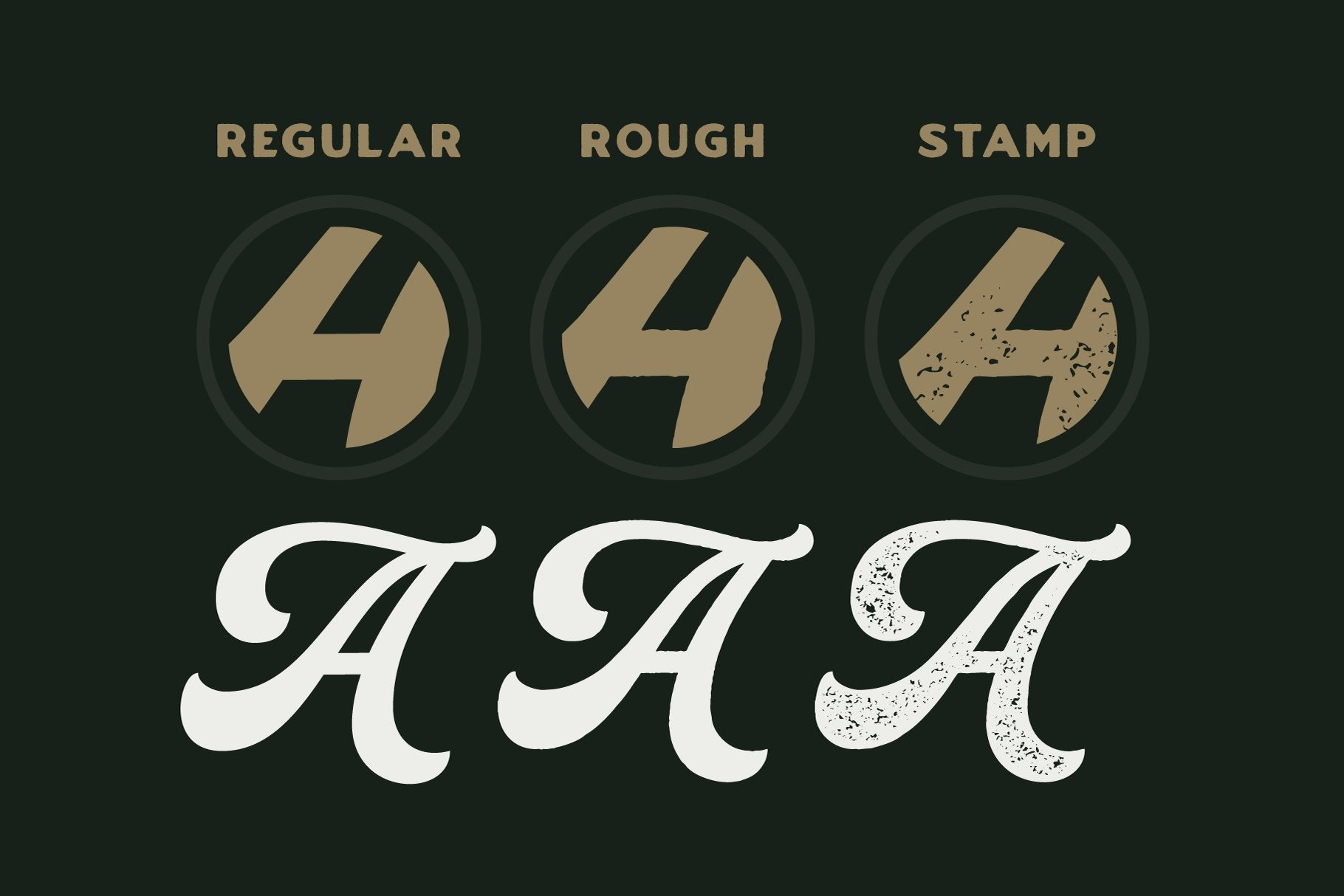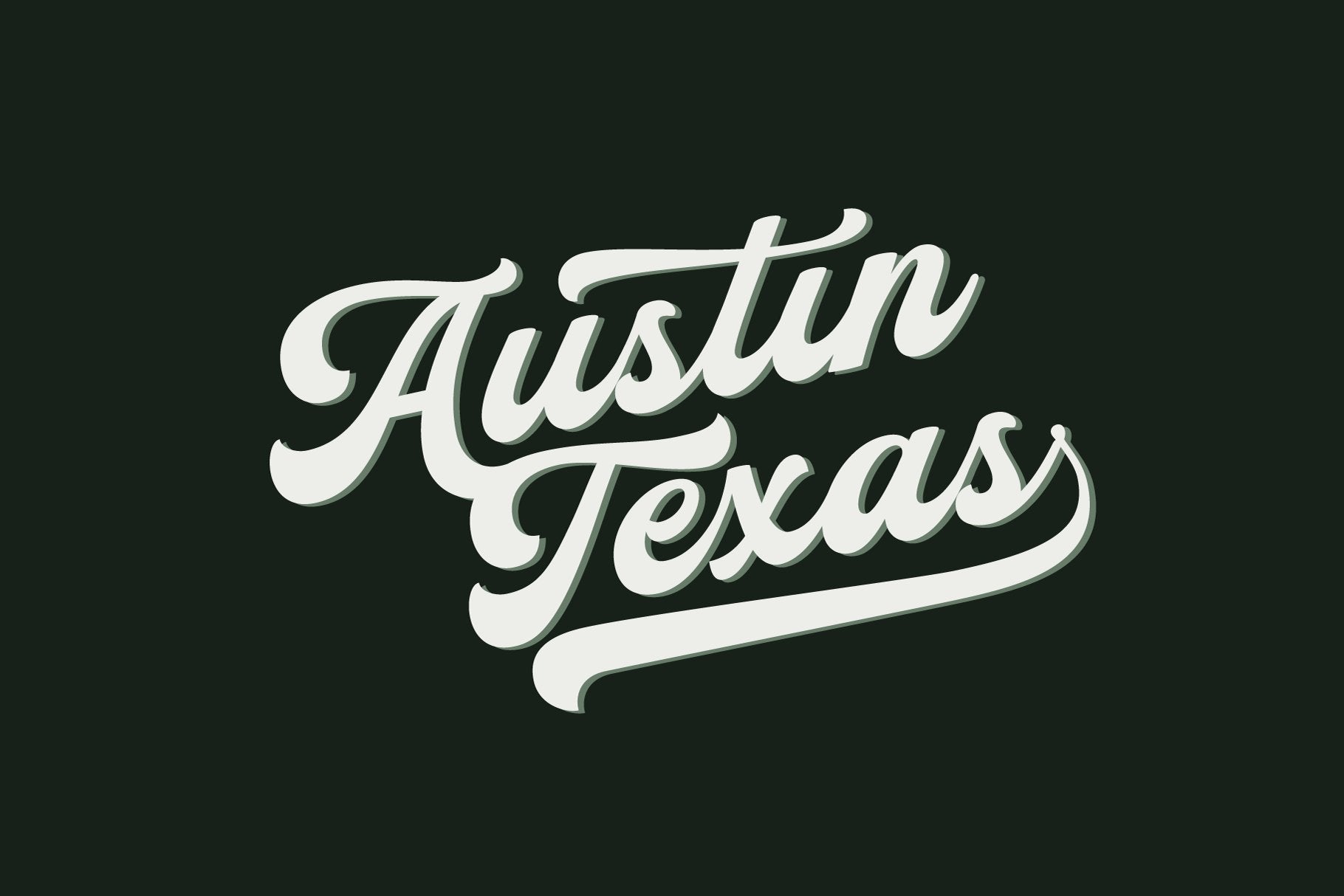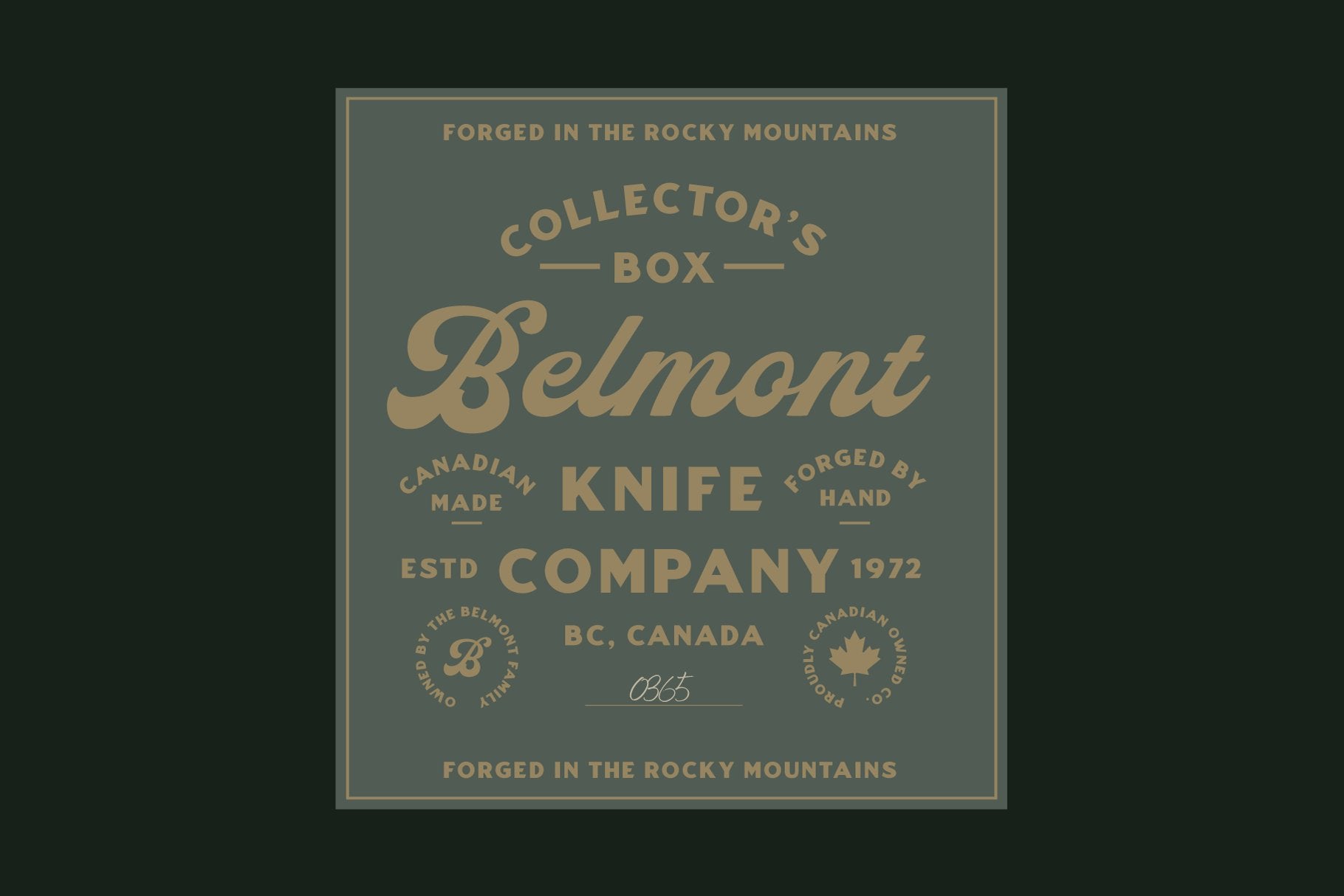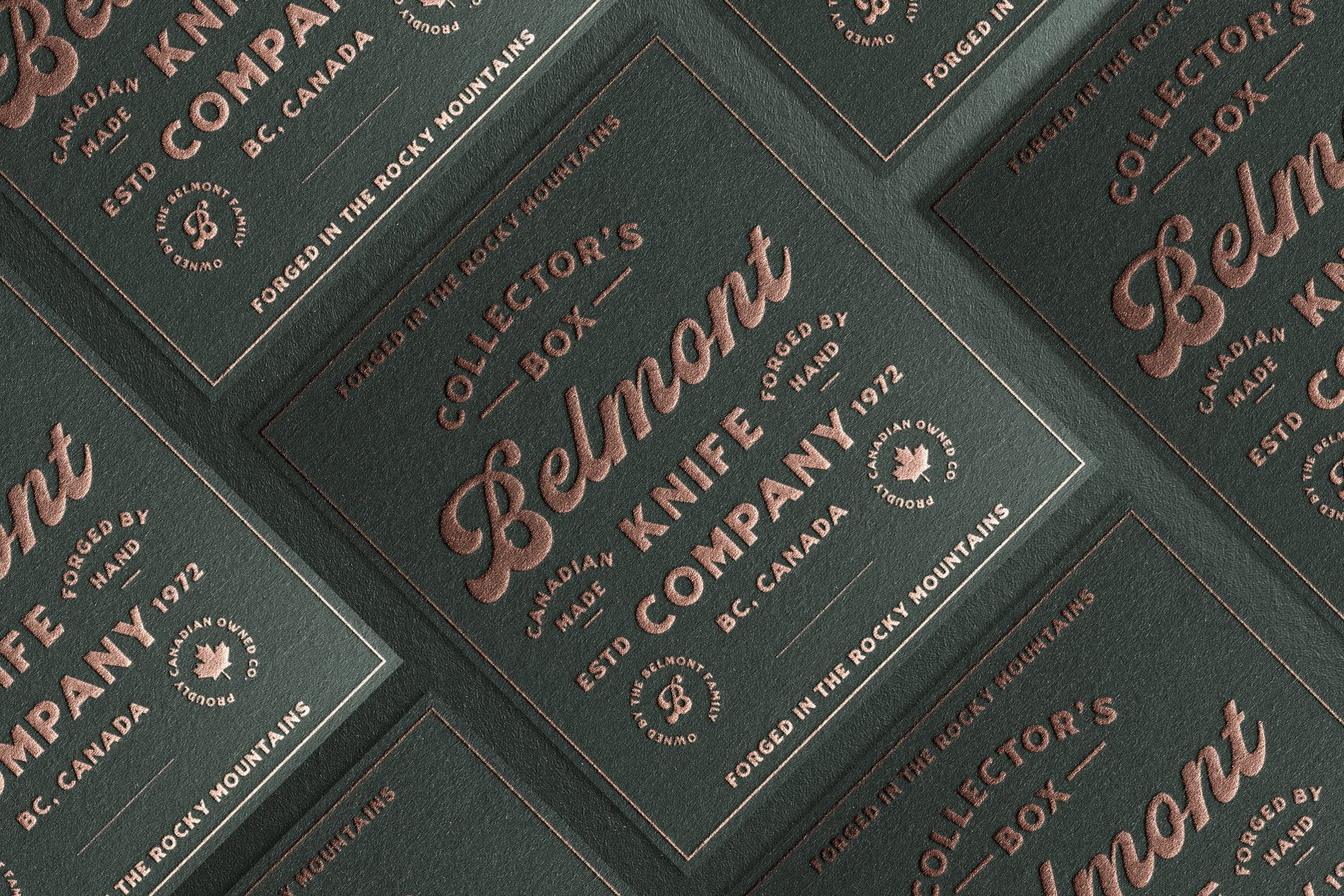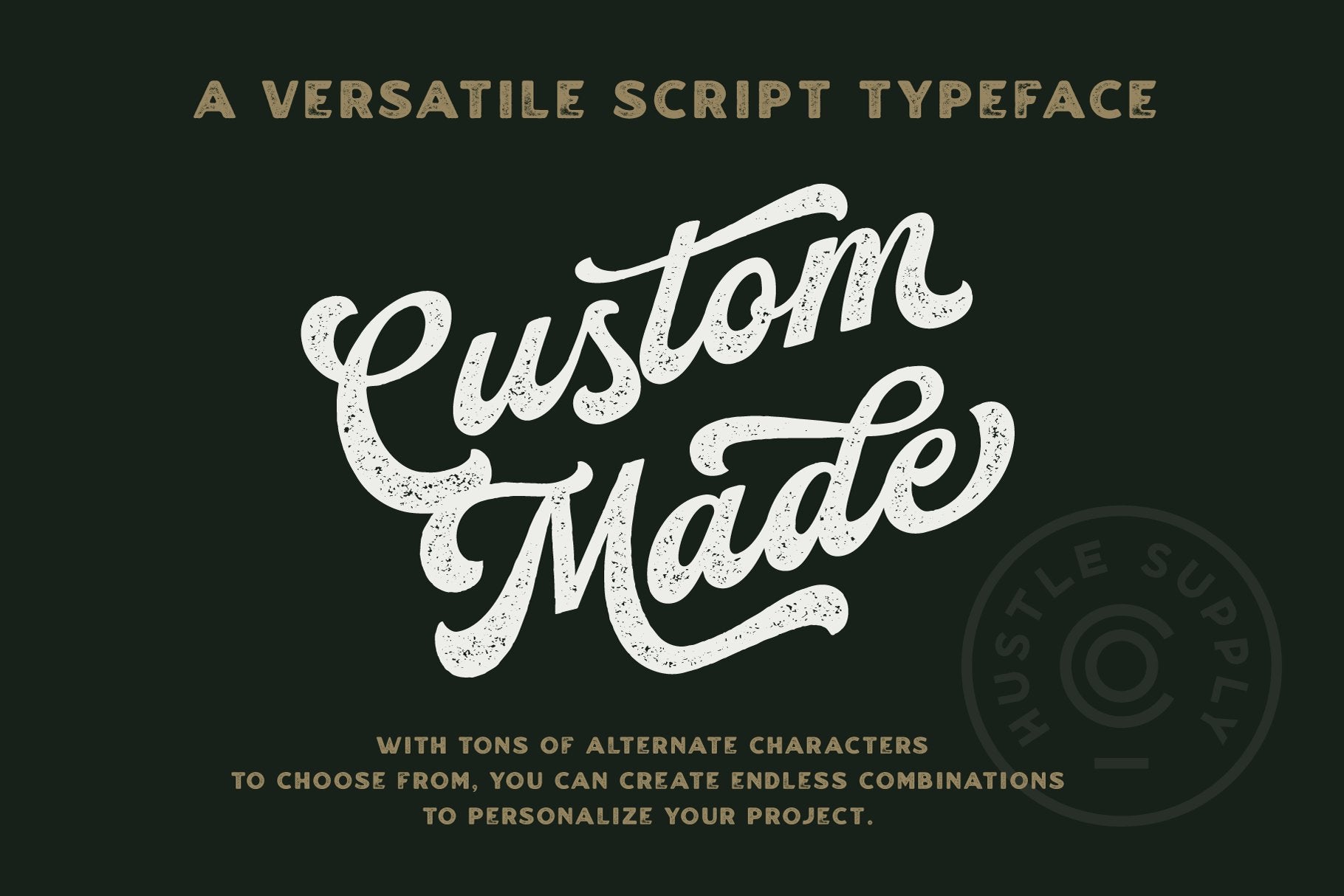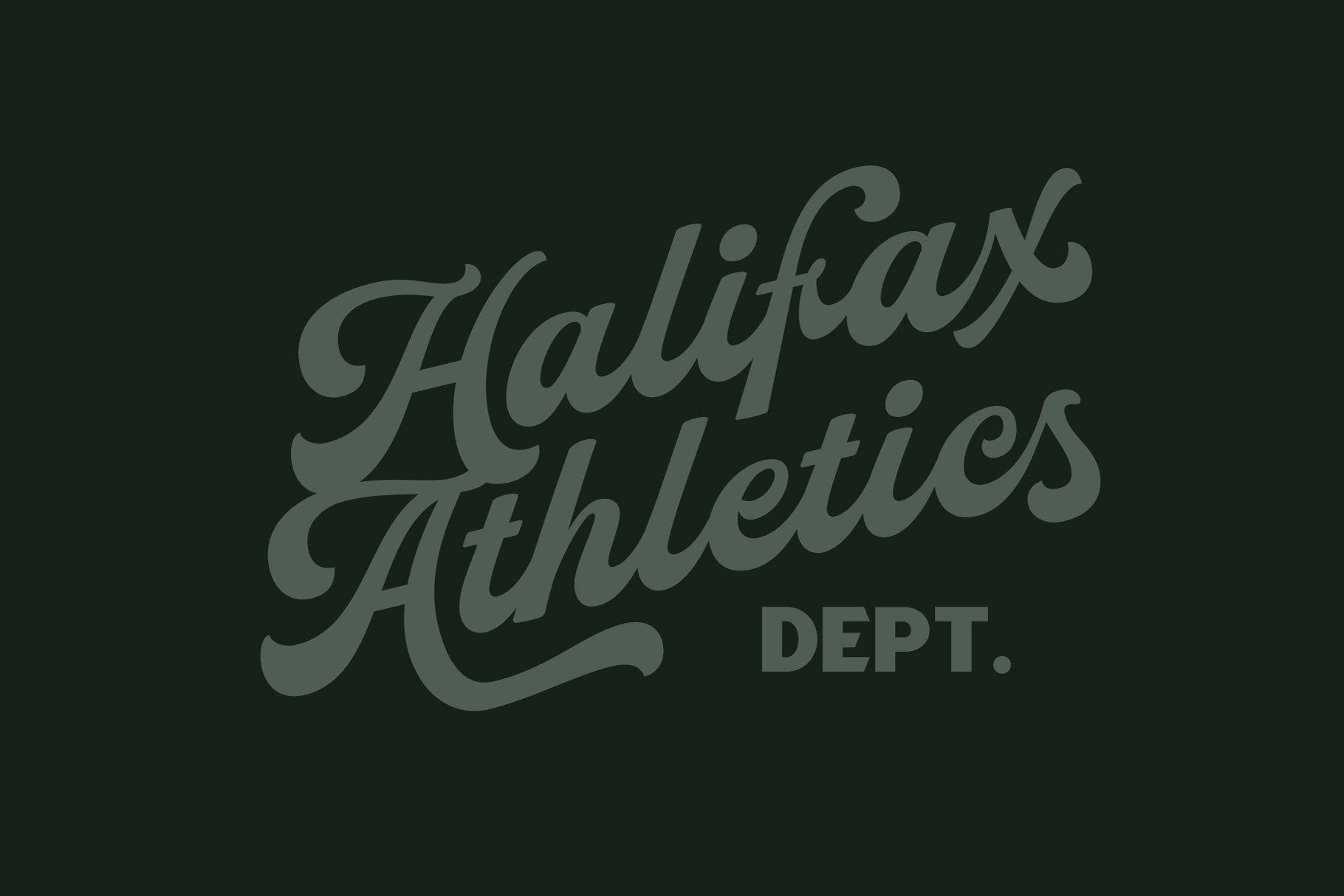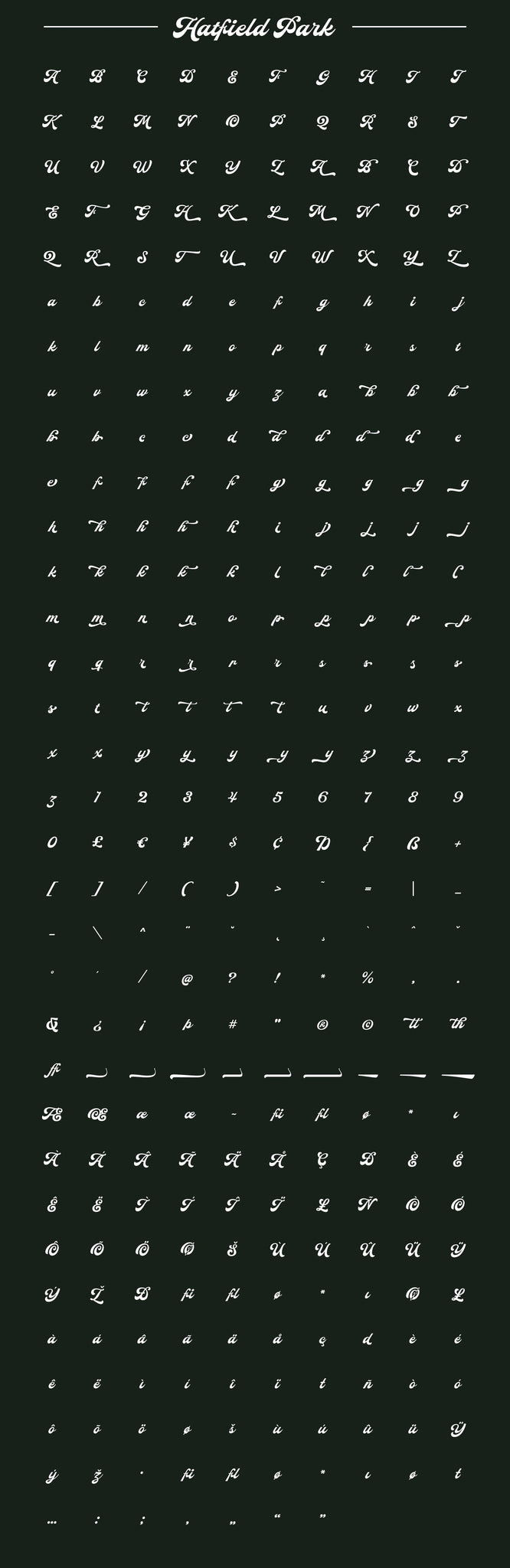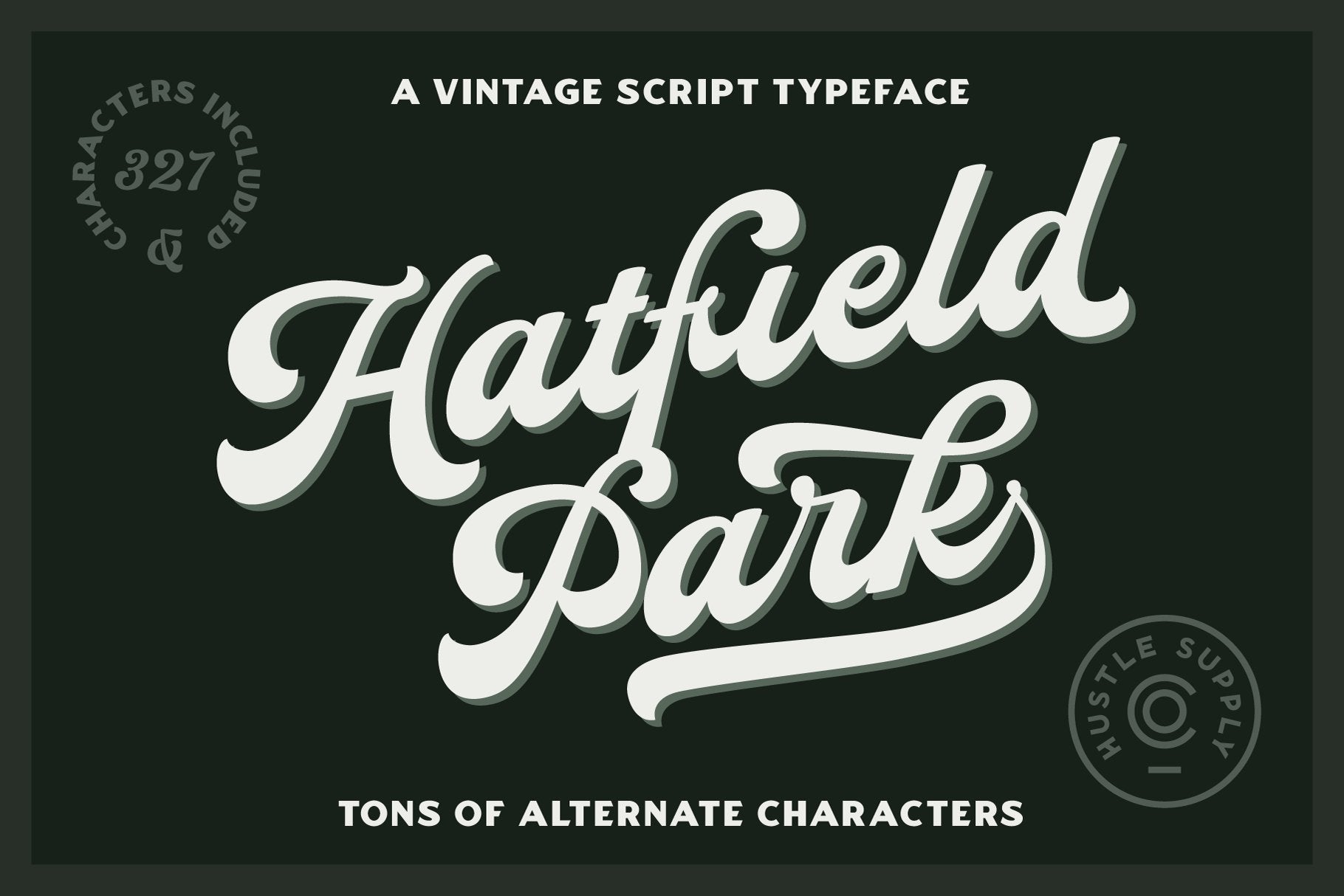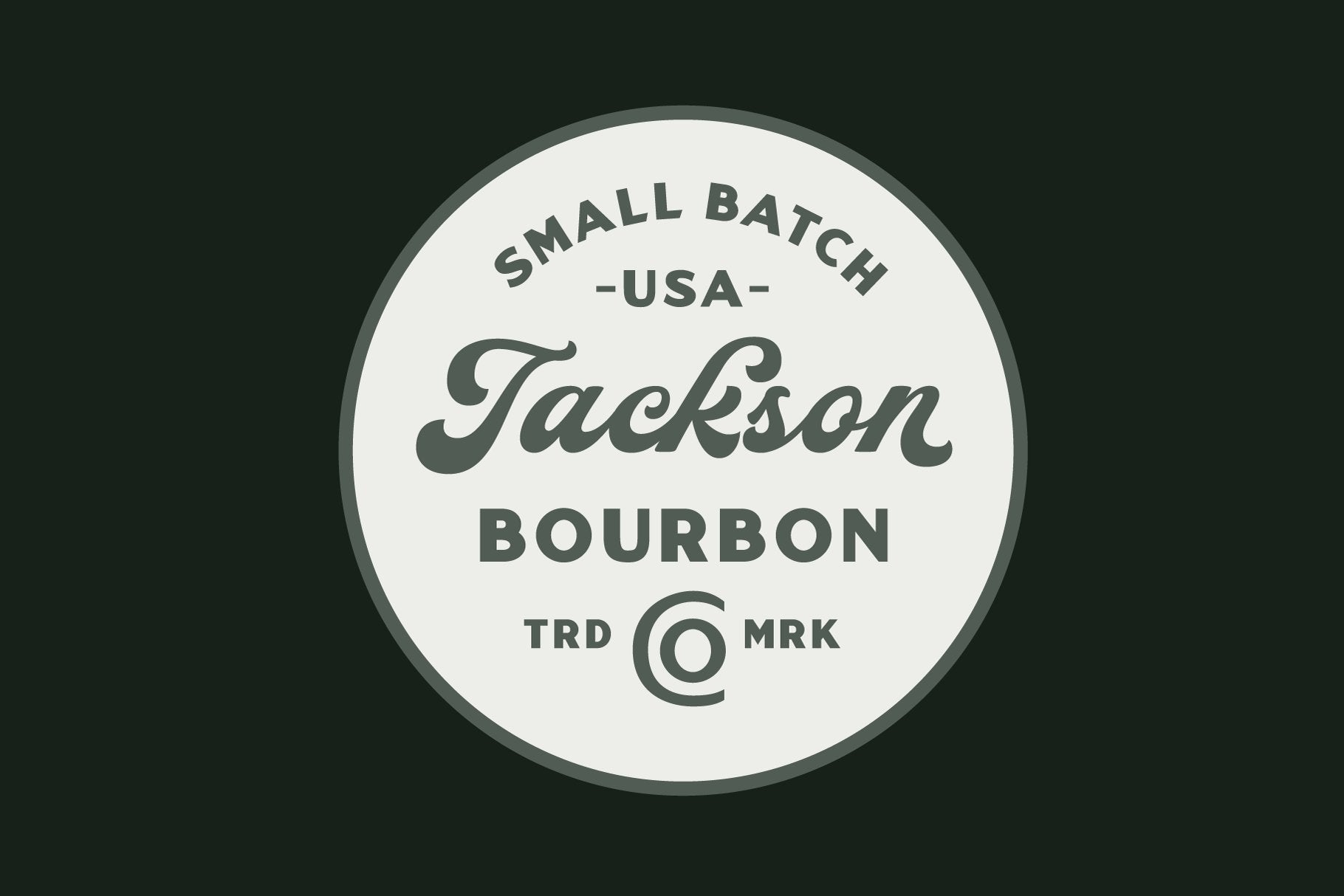
Hatfield Park | Vintage Script Font
Hatfield Park is a vintage inspired script typeface that comes loaded with tons of alternate characters and swashes. With 327 glyphs, tons of alternates, ligatures, swashes and extra characters, you'll have so many combinations to play with. Hatfield Park also comes with Regular, Rough & Stamp weights to give you even more options.